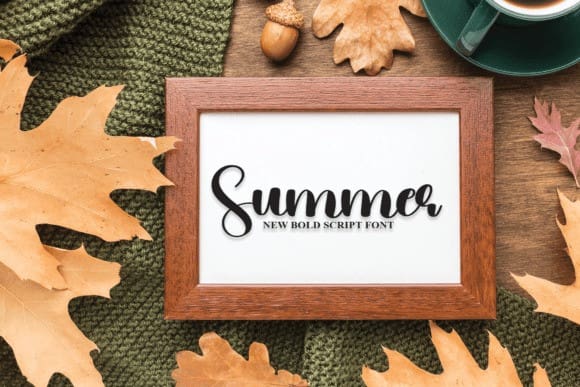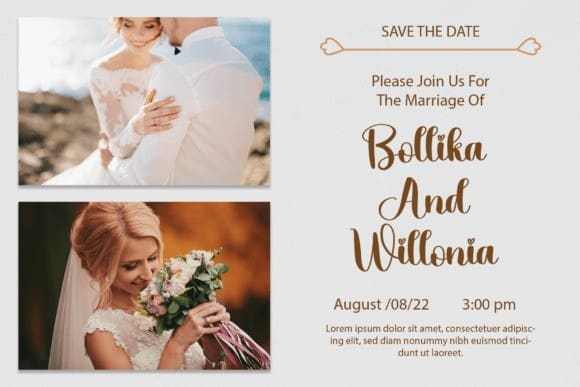
Chubby Script Font
Chubby Script Font, is a lovely and cute handwritten script font. It has a classy, elegant, and modern look that can be used for logos, branding, invitations, stationery, wedding designs, social media posts, and much more!